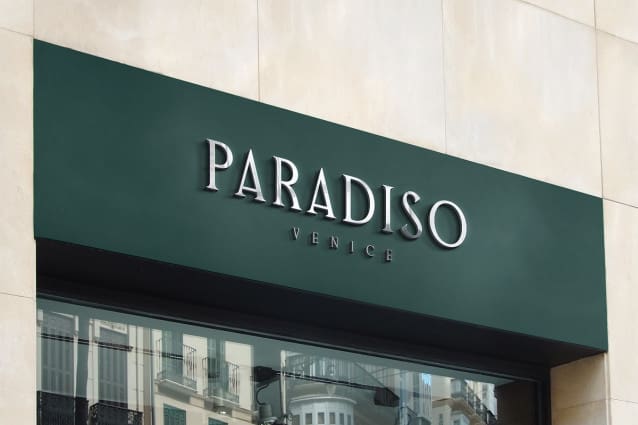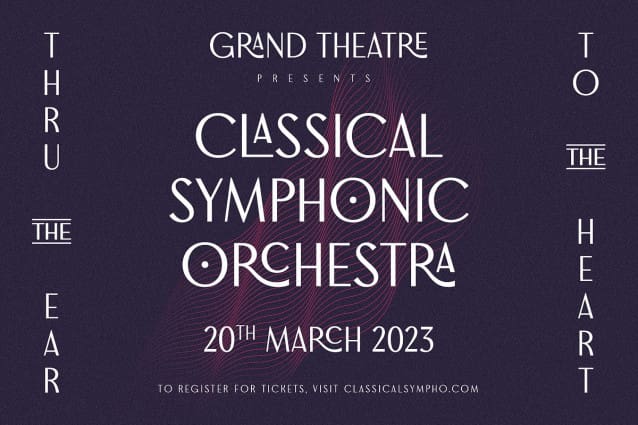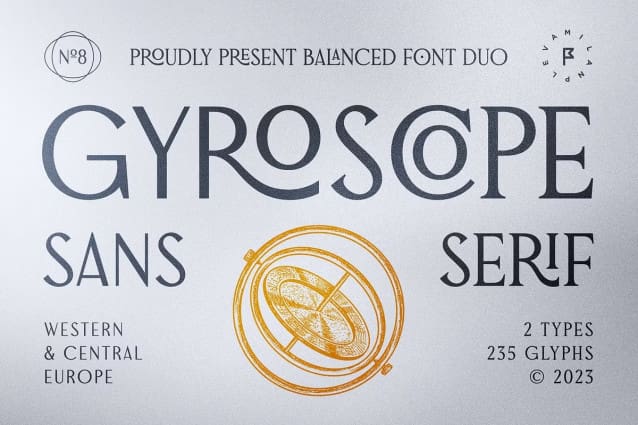
Gyroscope Font
Gyroscope Font is an all caps display font duo consisting of two styles – Serif and Sans Serif. Both of them can also be bought separately. Gyroscope has elegant and well balanced curves of letters perfect for logos, headlines, magazines, or even longer texts. There are selected ligatures you can use for a better look.